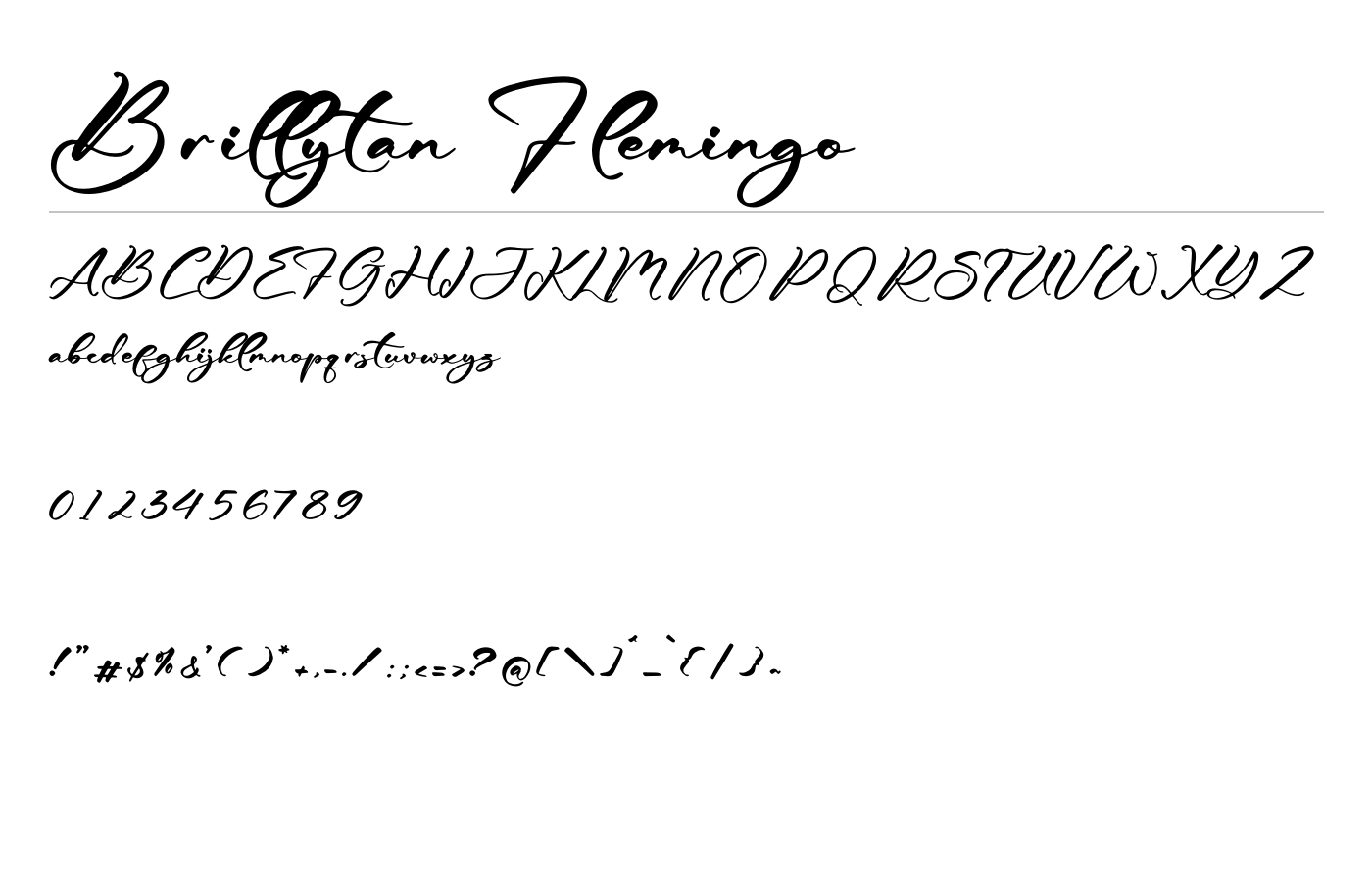
Brillytan Flemingo is an elegant, flowing script font that beautifully mimics natural handwriting with smooth, connected strokes and refined curves. Its delicate yet expressive style makes it perfect for sophisticated branding, wedding invitations, and stylish logos where a personal, graceful touch is desired. This font’s charming and artistic feel adds warmth and personality to designs without sacrificing readability.
Brillytan Flemingo Font
About Brillytan Flemingo Font